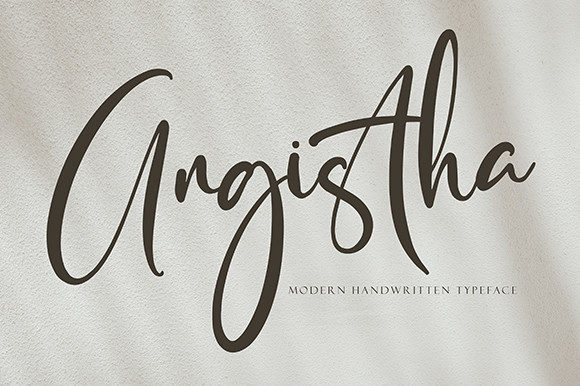
Unleash the artistry of Angista Font, a script so delicate and graceful, it'll make your designs dance. Each character, hand-crafted with precision, exudes elegance and flows with a rhythm that brings your words to life.
Dive into a world of creativity where Angista Font transforms your designs into masterpieces. Its balanced structure and beautiful curves add a touch of sophistication, while its versatility adapts effortlessly to any project, like a chameleon in a kaleidoscope of ideas.
Picture your designs adorned with Angista's enchanting aura. Whether it's branding, logos, or social media posts, Angista elevates your message, making it shine with a unique personality. Its versatility extends to invitations, greeting cards, and even tattoos, where its intricate details capture the essence of self-expression.
Let Angista Font be your creative muse, inspiring you to explore new horizons of design. Its delicate strokes evoke a sense of wonder, drawing the eye and captivating the senses. Experience the magic as your ideas take form, imbued with the timeless elegance of Angista.